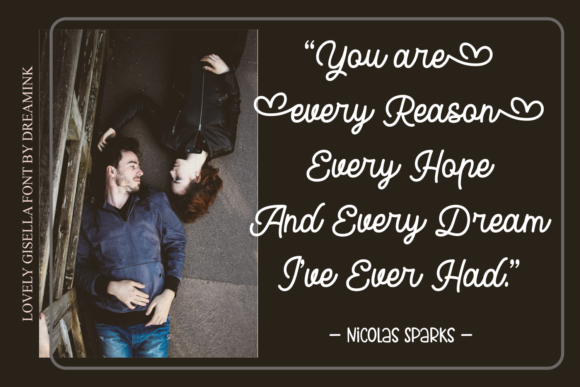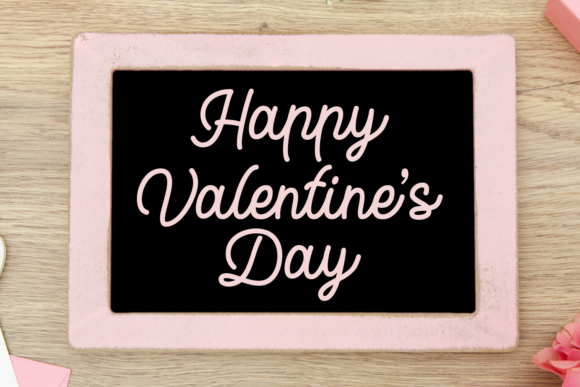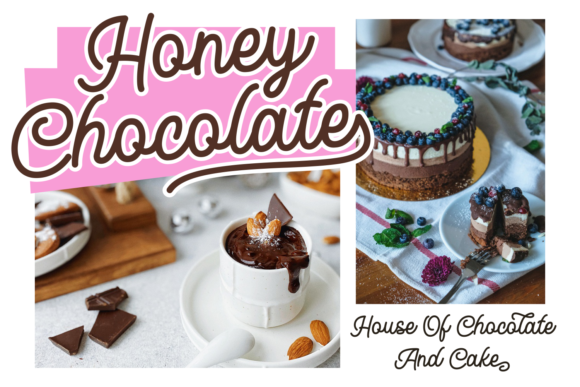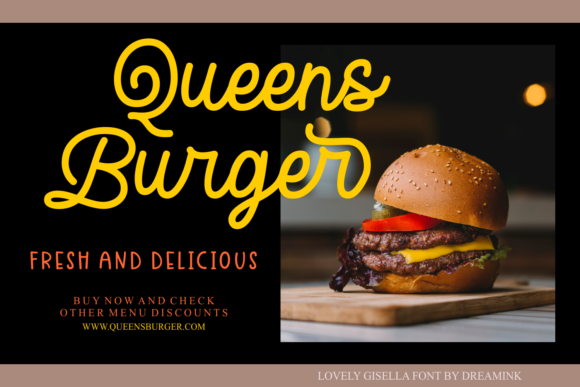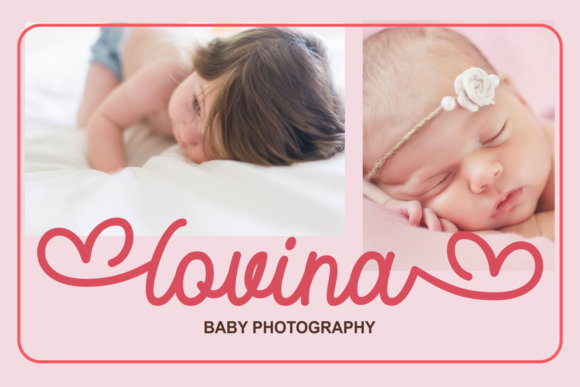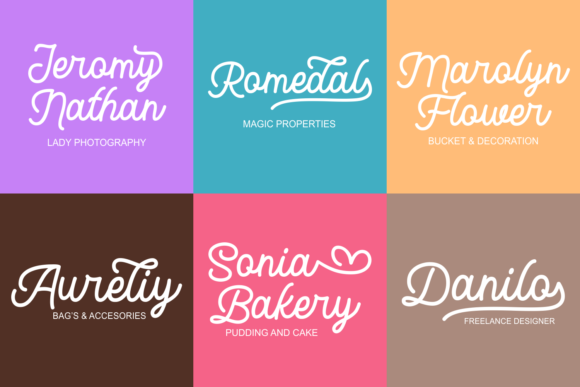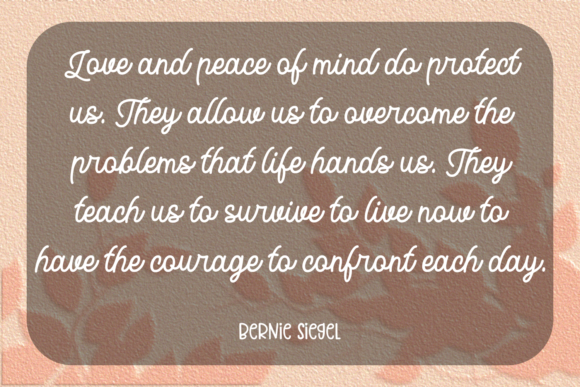
About Lovely Gisella Font
Lovely Gisella is an exquisite handwritten font, masterfully designed to become a true favorite. It maintains its classy calligraphic influences while feeling contemporary and fresh. Fall in love with it and bring your projects to the highest levels!